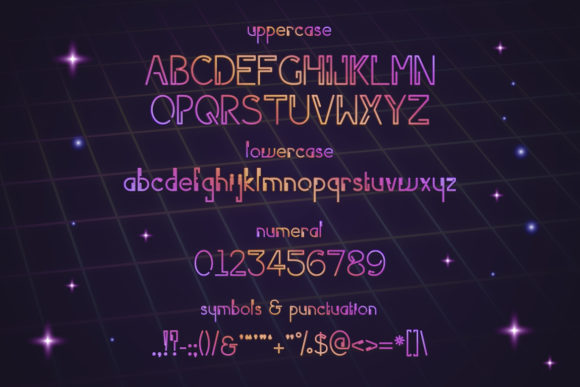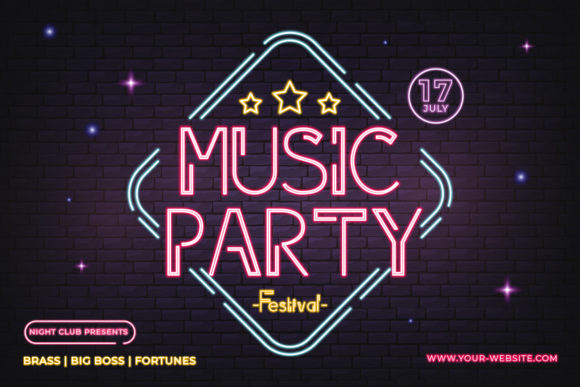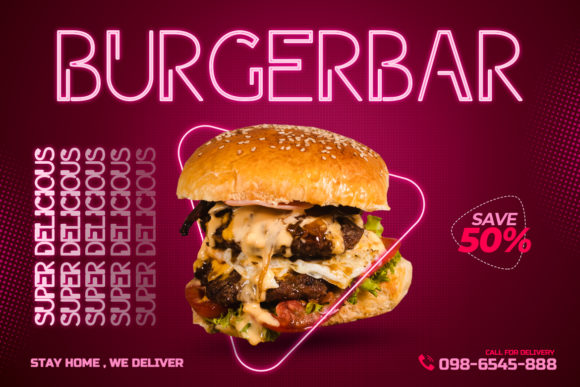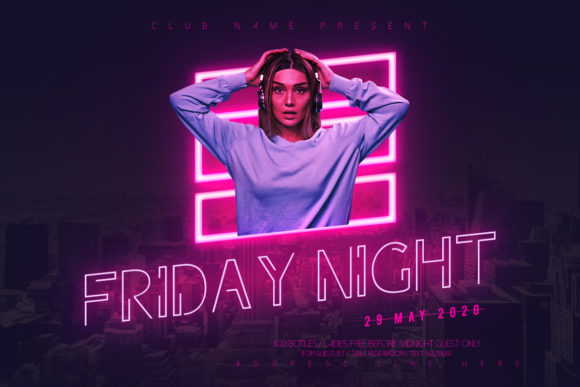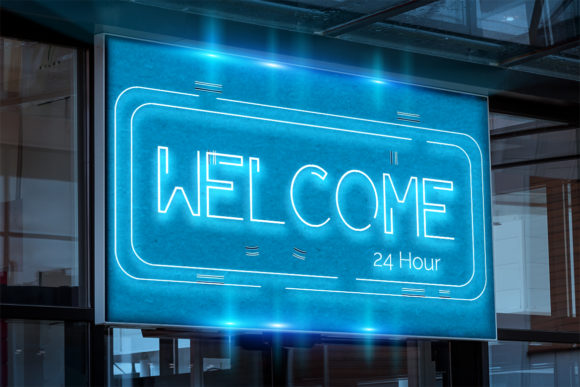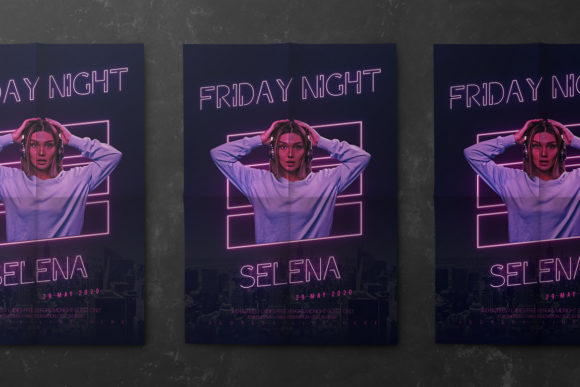
Introduction to Partilicious Font
Do you remember that moment when you’re brainstorming ideas for a creative project and suddenly, a spark of inspiration hits you? The perfect font appears, and your design comes to life. For many designers, this moment is what makes all the hard work worth it. And that’s exactly what we’re excited to share with you – a game-changing font that’s about to take your designs to the next level: the Partilicious Font.
This modern display font boasts a futuristic feel, making it the perfect addition to any design project. Whether you’re working on a branding campaign, crafting a quote, or creating eye-catching titles, the Partilicious Font is an invaluable resource. With its sleek and modern design, it’s no wonder this font is becoming a go-to choice for designers looking to add a touch of sophistication to their work.
Key Features of Partilicious Font
- High-quality, professional font suitable for creative projects, such as graphic design, digital art, and print materials.
- Unique, modern design with a transparent background, allowing for seamless integration into various backgrounds and designs.
- Partilicious Font comes in 2 font weights (Regular and Bold), providing versatility for a range of design applications.
- Designed to be easily scalable, making it suitable for use in various sizes and resolutions, from small text to large headings.
Honest Review: Partilicious Font
As a designer, I’m always on the lookout for high-quality design resources to elevate my creative projects. I recently had the chance to try out the Partilicious Font, and here’s my honest review.
- Unique and eye-catching design: The Partilicious Font has a distinctive look that’s perfect for adding a touch of personality to your projects.
- Limited font styles: While the Partilicious Font is great for its unique design, it’s only available in a few styles, which may not be suitable for every project.
- Not ideal for body text: Due to its decorative nature, this font may not be the best choice for large blocks of body text.
Overall, I think the Partilicious Font is a fantastic design resource for creative projects. Its unique design and transparent background option make it a great addition to any designer’s toolkit. While it may not be perfect for every project, it’s definitely worth checking out for its high quality and free download option.
The Partilicious Font is ideal for creative projects, such as graphic design, typography, and branding. Its high-quality design makes it a popular choice for designers and artists.